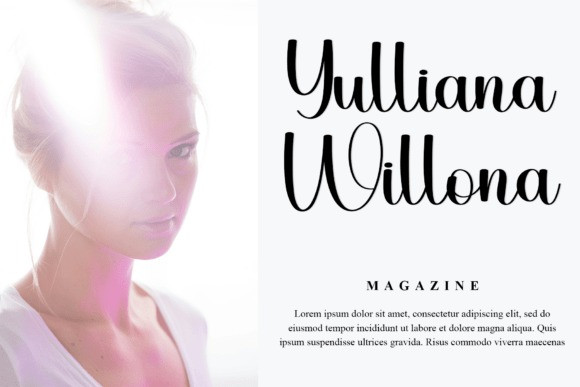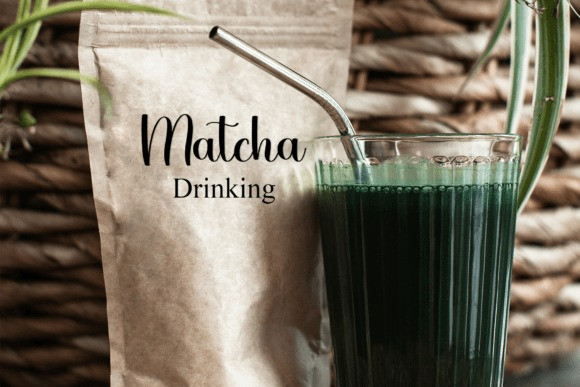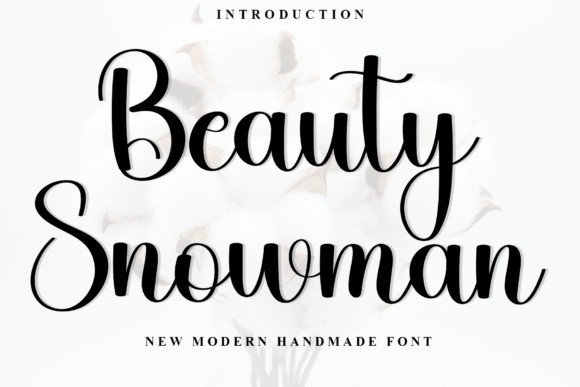
Beauty Snowman Script Font
Beauty Snowman Script Font is a stylish handwritten script font that exudes elegance and charm with its fluid, graceful strokes. Perfect for branding, invitations, and stationery, it adds a personal and sophisticated touch. The smooth curves and natural flow create a timeless, refined look for any design.